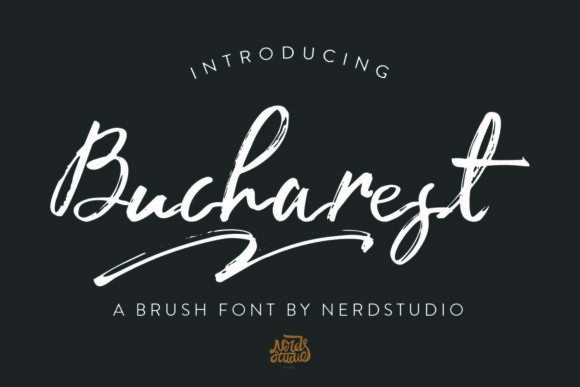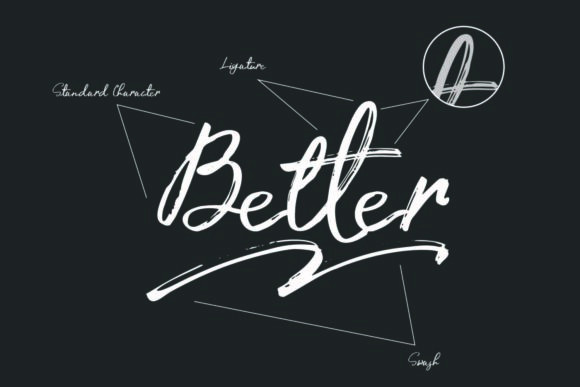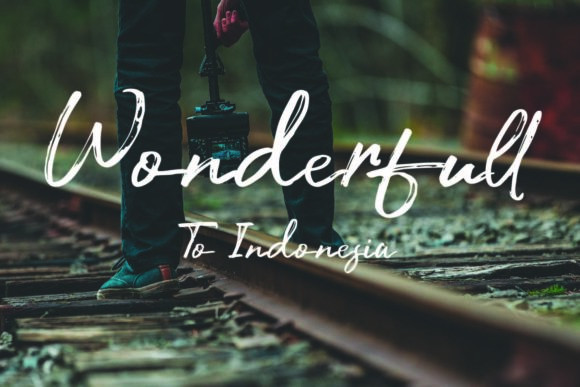
Bucharest Font
Bucharest is a lovely and stylish brushed handwritten font. It looks beautiful on a variety of designs requiring a personalized style, such as wedding invitations, thank you cards, weddings, greeting cards, logos and so on.